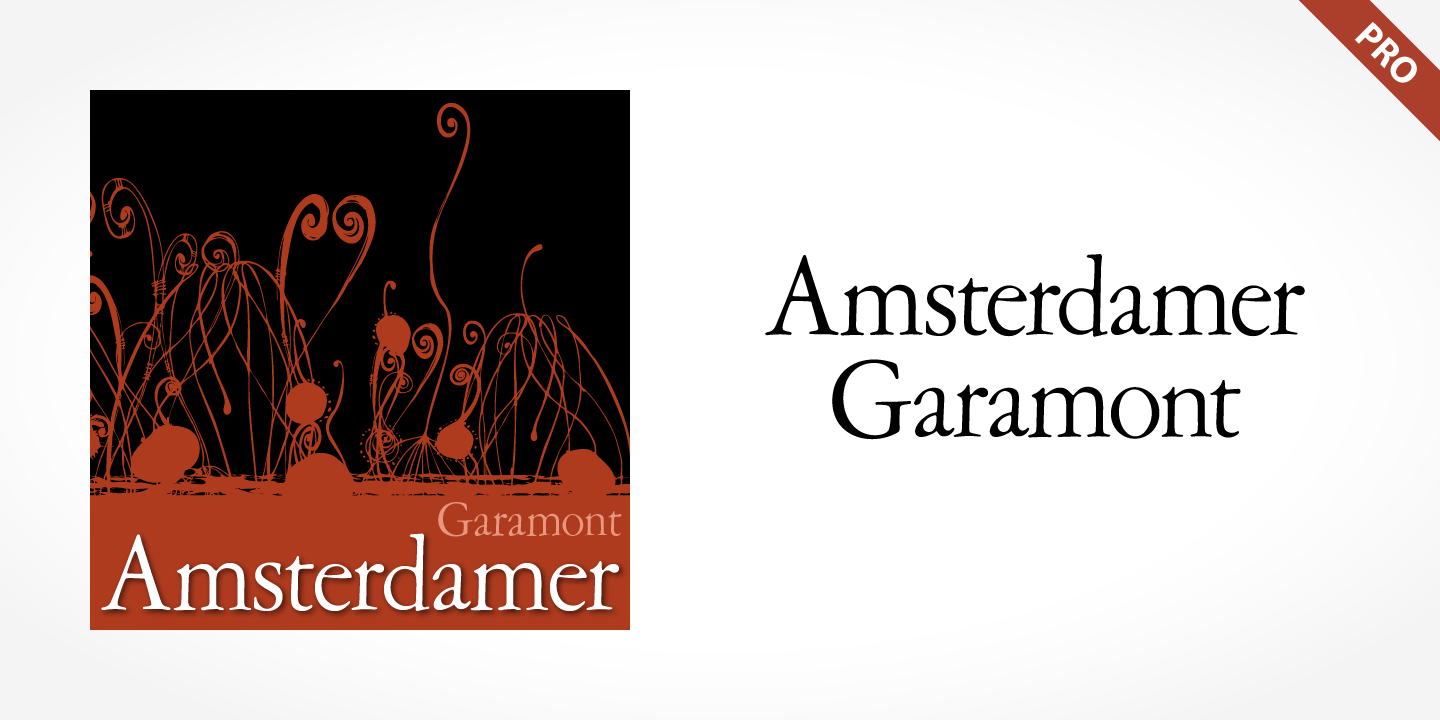
Amsterdamer Garamont Pro Font is a distinguished and timeless serif typeface, celebrated for its elegant proportions, superb readability, and classical beauty. It's perfectly suited for projects that demand a sophisticated, authoritative, and traditional aesthetic, such as high-end editorial design, luxury branding, academic publications, and formal invitations. Imagine Amsterdamer Garamont Pro Font gracing the pages of a literary masterpiece, providing a clear and refined voice for a museum's exhibition catalog, or adding an air of timeless class to a corporate annual report. Its harmonious letterforms and balanced weight ensure your message is conveyed with both precision and an undeniable sense of established quality, making it ideal for designs that aim for enduring elegance and serious credibility.
What makes Amsterdamer Garamont Pro Font truly exciting is its deep roots in typographic history combined with its seamless adaptation to modern digital environments. This font excels in creating a sense of trust and authority, making it ideal for both headlines and long-form text where sustained legibility is paramount. The meticulous construction of each character, featuring subtle serifs and classical proportions, ensures high clarity across various sizes and mediums. It’s more than just a typeface; it’s a strategic design tool that helps convey reliability, intellectual depth, and a polished aesthetic. Amsterdamer Garamont Pro Font stands out for its broad adaptability and its capacity to elevate any design with its graceful yet profound visual presence.
Amsterdamer Garamont Pro Font typically comes with a comprehensive family to provide extensive flexibility for diverse design applications. This usually includes a wide range of weights such as light, regular, medium, semi-bold, and bold, often accompanied by corresponding italic versions. Some families might also offer condensed styles, along with a variety of ligatures, small caps, and old-style figures to enhance its typographic possibilities. This extensive Amsterdamer Garamont Pro Font Free Download family ensures you have all the tools necessary to create cohesive and dynamic designs, allowing for consistent branding and powerful visual communication across all your platforms, from print media to digital interfaces.